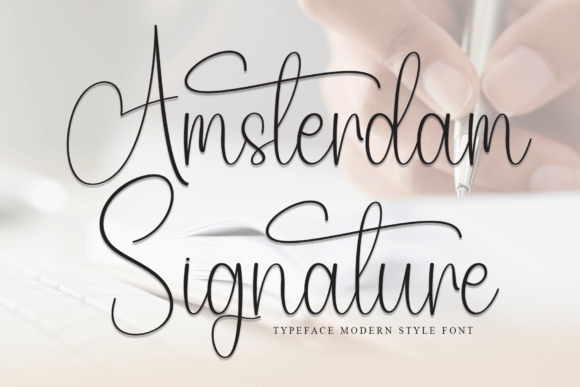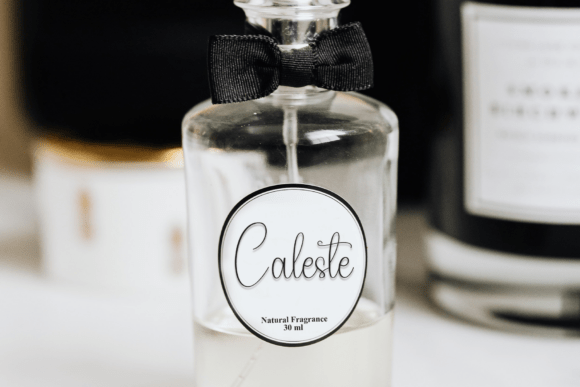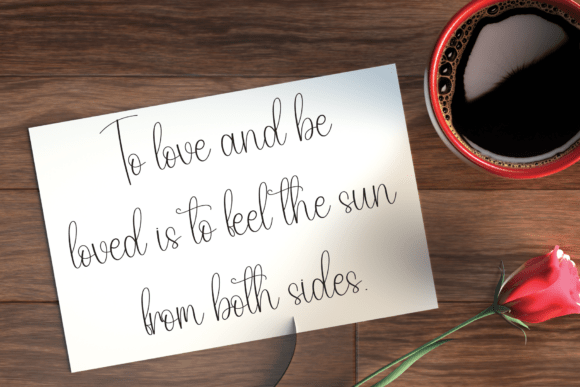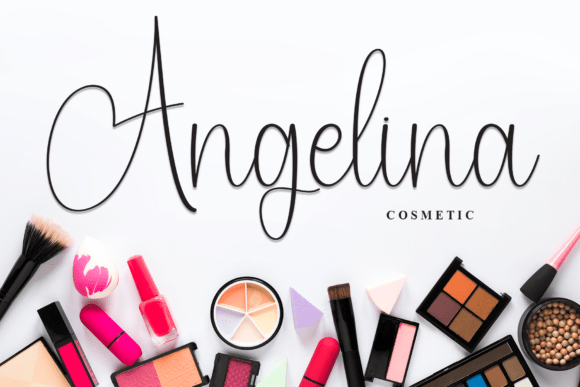
Amstedam Signature Font
About the Amstedam Signature Font
Unleash your creativity with Amstedam Signature Font, a versatile font perfect for a wide range of applications. A sophisticated and graceful script font, Amsterdam Signature exudes elegance and charm. With flowing lines and stylish swashes, it’s perfect for branding, wedding invites, logos, and signature-style quotes. This font brings a modern handwritten touch to any design needing a classy yet personal feel.
Amstedam Signature Font Usage Examples
Amstedam Signature Font Example